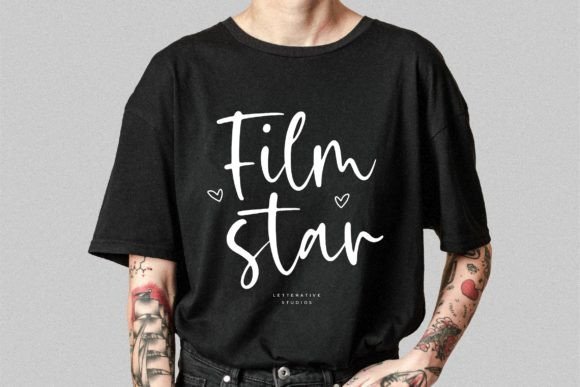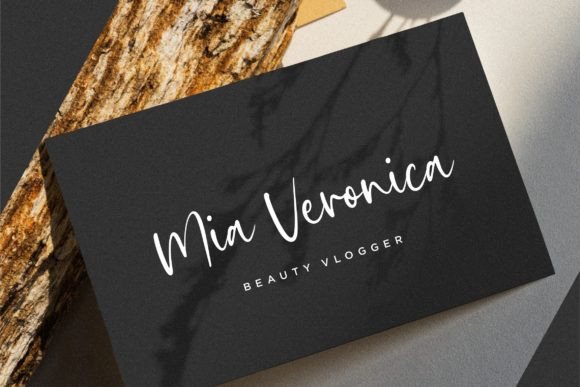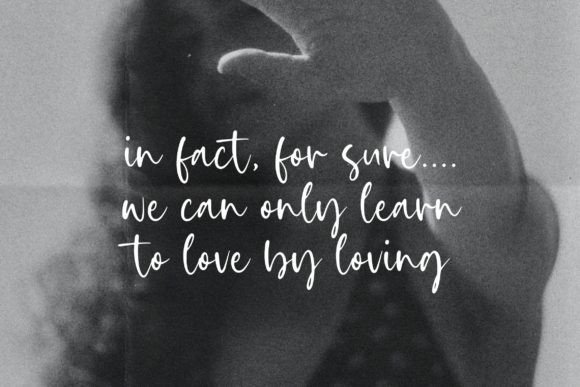
Introduction to Girlmind Font
Have you ever been working on a creative project and suddenly, the perfect font just doesn’t seem to exist? You’ve got a clear vision in mind, but the right words just aren’t coming together. That’s where the Girlmind Font comes in – a modern handwritten font designed to bring your creative ideas to life.
With its unique blend of elegance and playfulness, the Girlmind Font is a valuable resource for designers of all levels. Whether you’re working on a digital design project, creating a presentation, or making greeting cards, this font has the potential to elevate your work to the next level. And the best part? It’s available for a free download, making it an accessible design resource for anyone looking to add some personality to their projects.
From crafting to design, the Girlmind Font offers a high-quality solution for any creative endeavor. Its versatility and transparent background make it perfect for a wide range of applications, from social media graphics to print materials.
Key Features of Girlmind Font
- Unique, modern design with a transparent background for versatility
- Includes 6 styles, ranging from light to bold, for added flexibility
- Perfect for graphic designers, digital artists, and anyone seeking a modern, stylish font
Honest Review: Girlmind Font
As a designer, I’m always on the lookout for high-quality design resources that can elevate my creative projects. The Girlmind Font caught my attention, and I decided to give it a try. Overall, I was pleasantly surprised by its unique features and versatility.
- ✨ Unique and creative style that can add a touch of femininity to any design project.
- ✨ Supports transparent backgrounds, making it perfect for web design and other applications where background transparency is essential.
- ✨ Highly legible and easy to read, even at smaller font sizes.
- ⚠️ Limited font weights and styles, which may not be ideal for designers who need a wide range of options.
- ⚠️ May not be suitable for bold or dramatic designs, as its delicate style can get lost in more intense compositions.
Overall, I’m impressed with the Girlmind Font, and I would definitely recommend it to designers who are looking for a high-quality, creative resource for their projects. With its unique style and transparent background capabilities, it’s a great addition to any design arsenal.
Tips for Getting the Most Out of Girlmind Font
For a transparent background, use the font’s built-in transparent options. Experiment with different font styles and sizes to create a unique design. You can also use the font in combination with other design elements, such as images and graphics.
Girlmind Font is perfect for creative projects, such as blog posts, social media graphics, and marketing materials. Its high-quality design and transparent background make it ideal for use in digital design.